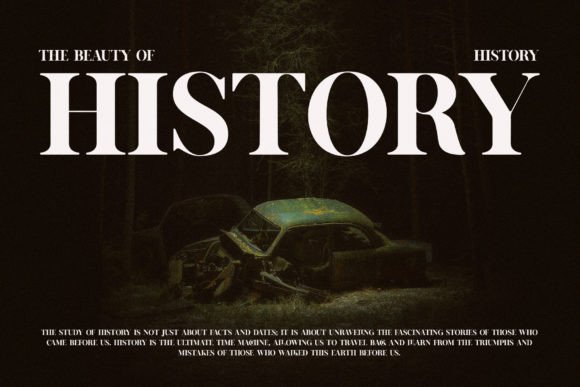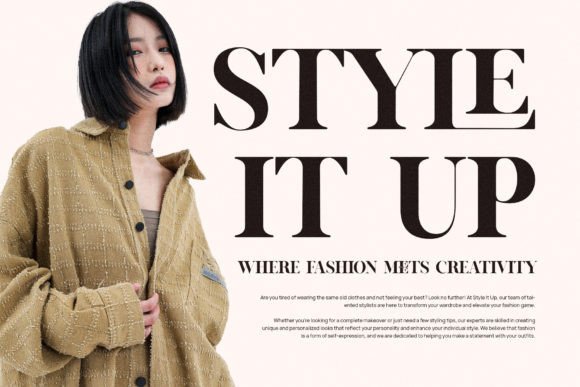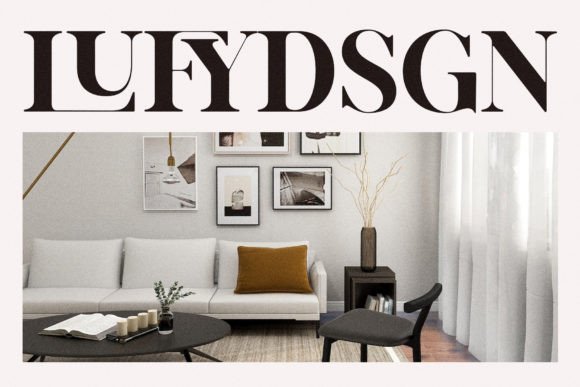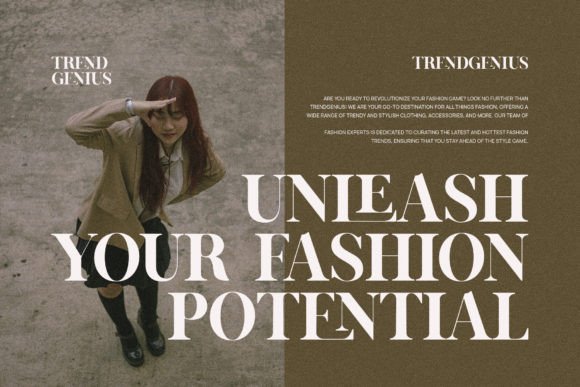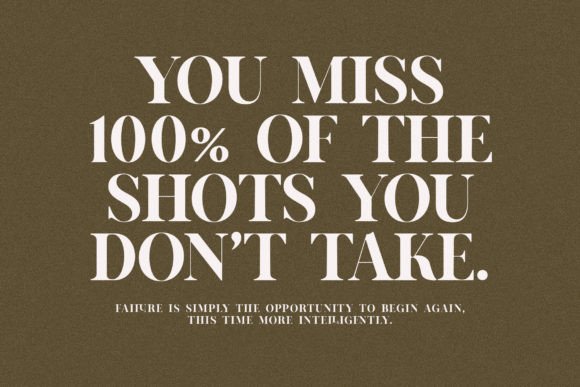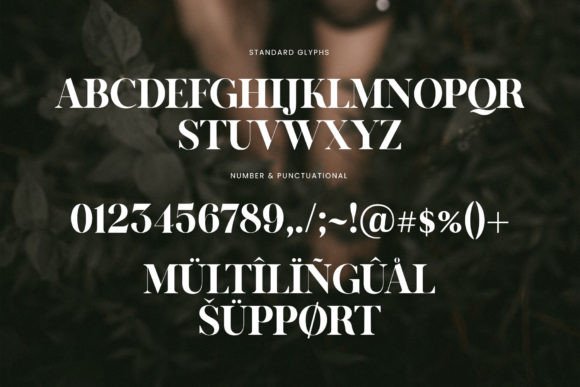
Introduction to Kalins Font
Elegant serif typeface combined with a classy and modern style.
This type of font is very suitable for your various needs such as branding projects, logos, wedding designs, social media posts, advertisements, product packaging, product designs, labels, photography, watermarks, invitations, stationery, and any project, created with high level of readability This font is PUA encoded which means you can access all of the amazing glyphs and ligatures with ease.